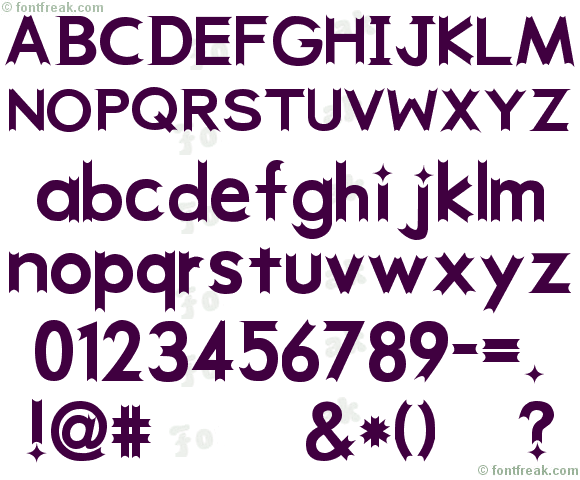
week (sRB)
About Week
The Week font by Srb-powers is a distinctive display typeface that captures attention with its unique design. Featuring playful, jagged edges and a thick stroke weight, this font conveys a sense of whimsy and creativity. The contrast in its letterforms adds visual interest, making it stand out in various applications. The spacing is well-balanced, allowing for legibility without compromising its decorative flair. This font is perfect for projects that aim to evoke a fun, energetic atmosphere.
Ideal use cases for the Week font include wedding invitations that need a touch of personality, movie posters that call for bold and memorable typography, restaurant menus where a unique style can enhance the dining experience, and merchandise branding that seeks to attract a youthful audience. It can also be effectively used in social media graphics, where eye-catching designs are essential for engagement.
The target audience for the Week font includes graphic designers looking for a versatile display typeface, small business owners wanting to add a unique touch to their branding, and content creators seeking to enhance their visual storytelling. This font’s playful nature makes it a great choice for projects aimed at younger demographics or those in creative industries.